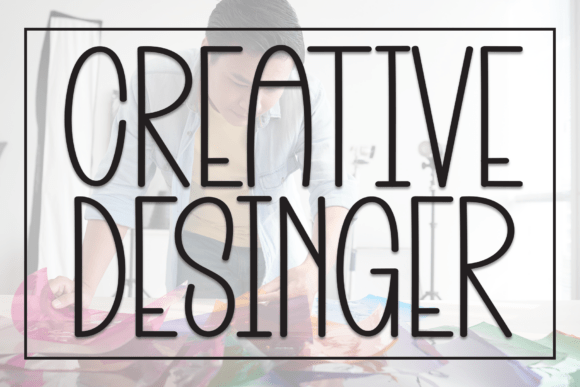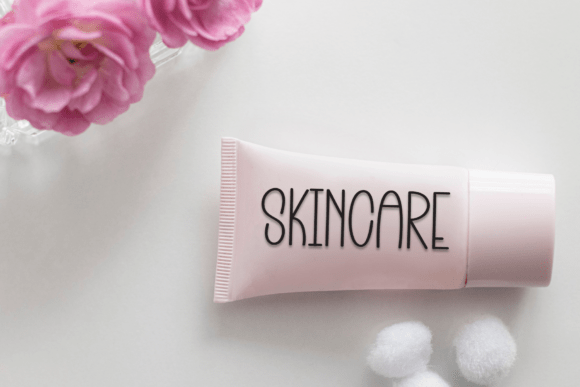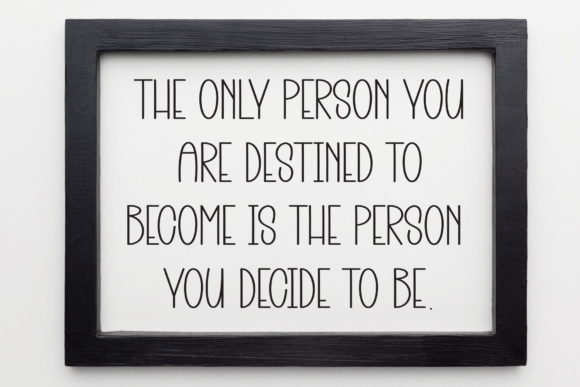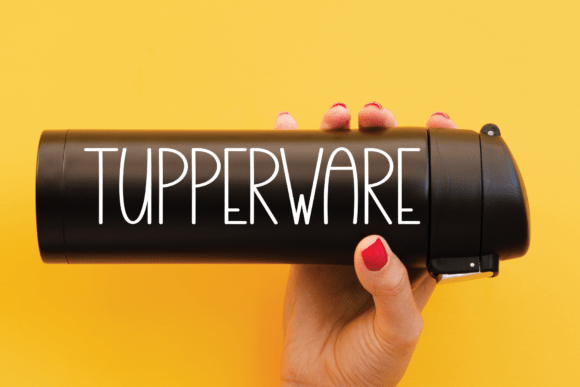
Creative Desinger Font
About the Creative Desinger Font
The Creative Desinger Font is here to transform your projects with its distinctive character and style. Creative Desinger is a casual and neat display font that radiates a fresh, friendly vibe. With clean lines and a relaxed structure, it’s perfect for packaging, posters, and social media graphics. The approachable design adds charm and clarity to projects while maintaining a polished appearance.
Its friendly, casual nature makes it ideal for projects requiring approachability and a touch of playfulness—think branding for cafes, children’s products, or eco-conscious businesses. It also excels in short-form content like headlines, logos, and social media posts. However, its less-than-optimal x-height makes it unsuitable for extended body copy or UI elements where readability is paramount.
Pairing Creative Desinger with a clean sans-serif like Open Sans for body text creates a balanced and harmonious design system. For a more playful feel, consider pairing it with a rounded geometric sans-serif. A delicate script font could add a touch of elegance to invitations or packaging designs using this display font.
The overall personality of Creative Desinger is undeniably optimistic and approachable, conveying a sense of warmth and approachability without sacrificing professionalism.
Creative Desinger Font Usage Examples
Creative Desinger Font Example